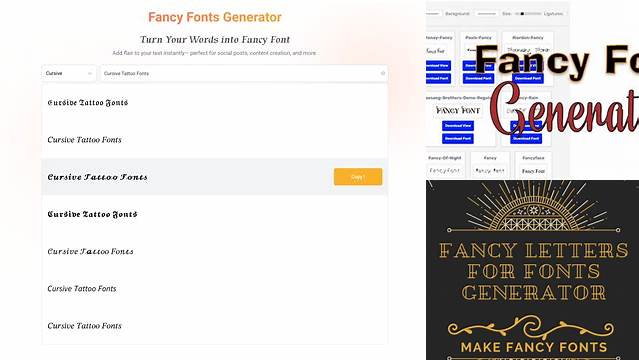
Unleash Your Style: Fancy Fonts Generator Guide
Hey everyone! Ever wanted to spice up your text and make it pop? Tired of the same old boring fonts? Well, you're in luck! This guide is all about the fancy fonts generator, a super cool tool that lets you transform regular text into awesome, eye-catching styles. We're talking everything from elegant cursive to bold, blocky designs and everything in between. Let's dive in and explore the world of fancy fonts!
H2: Decoding the Fancy Fonts Generator: What's the Hype?
So, what exactly is a fancy fonts generator? Basically, it's a website or tool that takes your plain text and converts it into a variety of visually appealing and unique font styles. It's like magic, but instead of pulling a rabbit out of a hat, you get stylish text ready to use! The beauty of it lies in its simplicity: you type in your text, and the generator spits out a bunch of different font options for you to choose from. These fonts often use Unicode characters, which means they're compatible with most platforms and devices. This means you can use your fancy text on social media, in your documents, and even in some games. The generator often offers a wide range of styles, catering to different tastes and purposes. You might find elegant cursive fonts perfect for invitations, or bold, blocky fonts that are ideal for headlines and logos. Then there's everything in between - from gothic fonts to bubble fonts and everything that adds that little extra 'oomph' to your words. You can use them to create unique social media bios, decorate your online profiles, create stunning graphics for your website, or even add a creative flair to your presentations. It's a versatile tool that opens up a world of possibilities for expressing yourself creatively. The process is usually super easy, with a simple copy-paste process. You can instantly enhance your text and communicate your ideas with more impact.
It's not just about aesthetics; using a fancy fonts generator is also about enhancing your message. A well-chosen font can communicate a specific tone, personality, or brand identity. It can grab your audience's attention and make your content stand out. This is why these generators are used by a wide range of people, from social media influencers and digital marketers to casual users looking to add a bit of fun to their online interactions. It's a fun and accessible way to unleash your creativity and make your words stand out. It's all about making your text visually interesting and reflective of your unique style. So, if you're looking to add a bit of flair to your digital presence, the fancy fonts generator is a fantastic tool to have in your arsenal. It's simple to use, versatile, and a guaranteed way to make your text stand out from the crowd. Now, let's get to the next section!
H2: Exploring Different Types of Fancy Fonts: A Visual Feast
Okay, guys, let's get visual! The world of fancy fonts is incredibly diverse, with styles to suit every mood and message. Let's explore some of the most popular and captivating font categories you'll find when using a fancy fonts generator. First up, we have the elegant cursive fonts. These are all about grace, sophistication, and a touch of vintage charm. They mimic handwriting and are perfect for invitations, romantic messages, or anything that needs a personal touch. Think of graceful swirls and flowing letterforms that add a sense of elegance to your text. These fonts instantly convey a sense of refinement. Next, we have the bold and impactful block fonts. These are the workhorses of the font world, ideal for headlines, logos, and anything that needs to grab attention. They’re strong, clear, and make a statement. These fonts make your text appear confident and bold. Then, there's the playful and whimsical bubble fonts. These are fun, bouncy, and perfect for adding a lighthearted touch to your text. Imagine rounded letterforms that create a sense of joy and playfulness. These are commonly used in children's materials or fun social media posts.
For those with a touch of darkness, the gothic fonts will be a great choice. They are inspired by medieval calligraphy and have a dramatic, imposing feel. These are great for creating a sense of mystery or intrigue. Their intricate letterforms and dramatic flair add an element of mystique to your text. You will also find a wide range of artistic fonts, including those that resemble graffiti or other artistic styles. They are unique and expressive and allow you to create a distinct style for your text. Lastly, the novelty fonts. These fonts are all about fun and experimentation, with styles inspired by various themes, from space to nature. They add an element of surprise and originality to your text. The best part is that you can play around and mix these fonts to create your own unique styles. You can create a personal brand and let your words create a masterpiece! Whether you want something classy, cool, or completely out there, there's a fancy font to match your vision! So, prepare to be inspired and choose the right one for you!
H3: Cursive Fonts: The Epitome of Elegance
As we discussed, cursive fonts are all about elegance and sophistication. They mimic the fluidity of handwriting and are perfect for adding a touch of class to your text. Cursive fonts come in a variety of styles, from delicate and flowing to more bold and pronounced. They evoke a sense of romance and personal touch, making them ideal for invitations, greeting cards, or any message that needs a touch of intimacy. Their design often includes connecting letters, creating a seamless flow that adds to their elegance. The best cursive fonts are those that remain easy to read.
Cursive fonts can add a touch of sophistication to any design, whether you are creating wedding invitations, crafting personalized greeting cards, or writing a heartfelt message to a loved one. It makes your text feel more personal and is an effective way to showcase your creativity. They can elevate your content by providing a touch of elegance and personalization that other fonts simply cannot match. When choosing a cursive font, it’s important to consider readability. Make sure the font is clear and easy to understand, as some intricate cursive styles can be challenging to read. Cursive fonts also work well in branding, particularly for businesses that want to convey a sense of luxury, sophistication, or personal touch. A well-chosen cursive font can enhance your brand identity and make a memorable impression on your audience. With a fancy fonts generator, you can find a variety of cursive fonts to suit your style, helping you create stunning designs that stand out. So, embrace the beauty of cursive fonts and let your words dance gracefully on the page. They are a true testament to the power of visual communication.
H3: Bold Block Fonts: Making a Statement
Next up, let's talk about the power of bold block fonts! These fonts are the workhorses of the design world, known for their strength, clarity, and ability to grab attention. They're the go-to choice for headlines, titles, and any text that needs to make a statement. The fancy fonts generator offers a wide array of bold block fonts, from clean and minimalist designs to more elaborate and stylized options. These fonts are designed to be easily readable, making them perfect for conveying important information quickly. They instantly convey authority and confidence.
The key features of bold block fonts are their thick strokes and distinct letterforms. They are designed to stand out and draw the reader's eye, making them ideal for headlines, titles, and any text that needs to command attention. Whether you're creating a website banner, designing a poster, or crafting a social media post, bold block fonts can help your message stand out. You can use them for website headers, logos, and promotional materials. They work exceptionally well in contexts where legibility is key, such as on billboards or in digital advertisements. When you use a fancy fonts generator, you'll find numerous variations of bold block fonts, from clean and modern styles to more retro or artistic options. Choosing the right one depends on your project and the message you want to convey. Consider the overall tone and style of your design. You can pair them with other fonts to create visual interest. These fonts are versatile, ensuring your message is clear and impactful. Embrace the power of bold block fonts and let your words make a lasting impression!
H3: Playful Bubble Fonts: Adding a Touch of Fun
Let's get playful with bubble fonts! These fonts are all about fun, joy, and a lighthearted vibe. With their rounded, bubbly letterforms, they're perfect for adding a touch of whimsy to your text. The fancy fonts generator offers a wide variety of bubble fonts, each with its own unique style and personality. These fonts are perfect for anyone looking to inject a dose of fun into their designs, whether you're creating graphics for social media, designing invitations for a children's party, or simply wanting to add a playful touch to your personal projects. They instantly make your text feel friendly and approachable.
H2: How to Use a Fancy Fonts Generator: Step-by-Step Guide
Okay, let's get down to the nitty-gritty: how do you actually use a fancy fonts generator? It's easier than you think! Follow these simple steps, and you'll be creating stylish text in no time. You can easily add a touch of flair to your digital presence. Most generators work the same way: you type in your text, and then it will generate a bunch of cool fonts. It is a super straightforward process!
First, go to the website of a fancy fonts generator. There are tons of these online, just search for